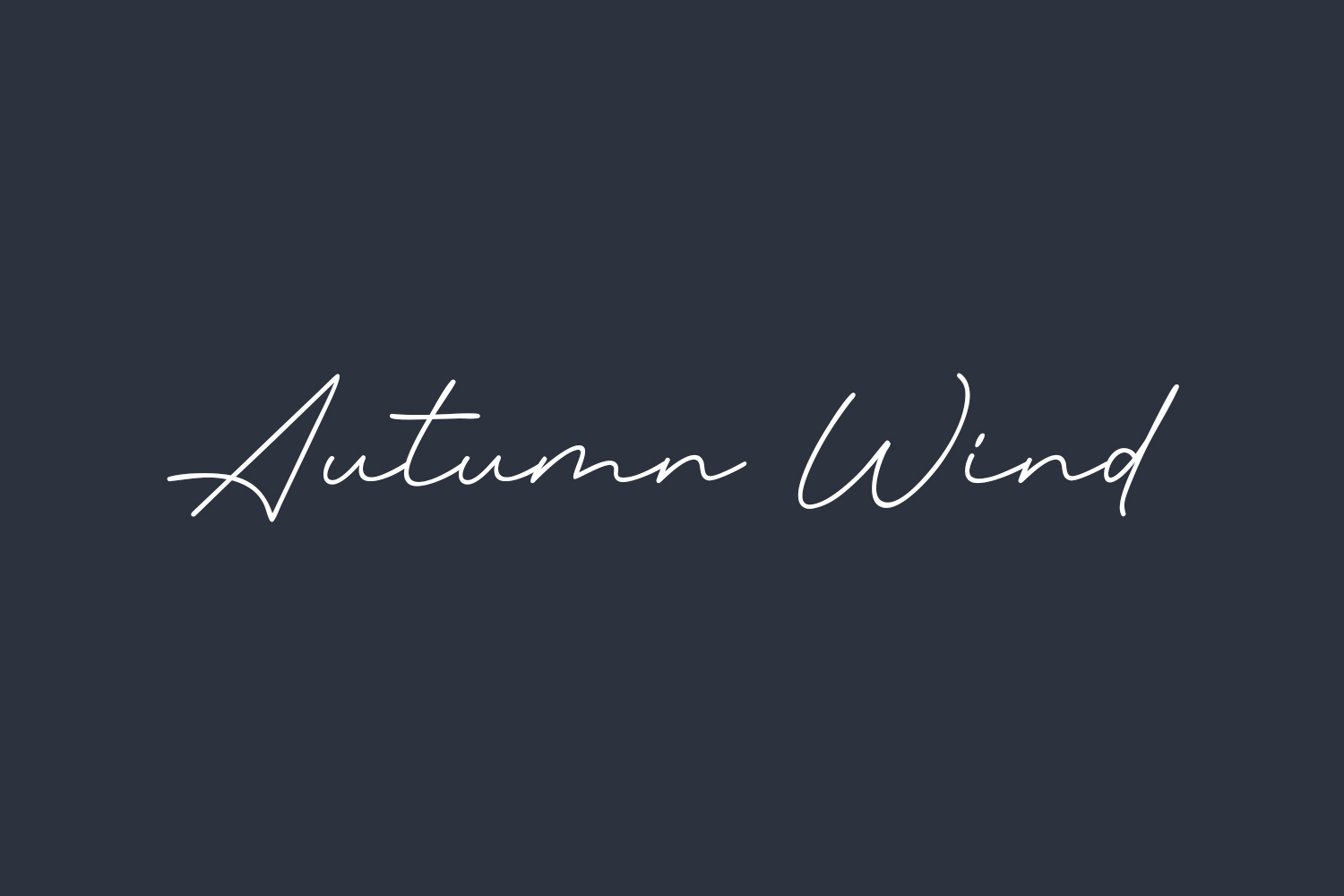
Autumn Wind Free Font: a clean, stylish, modern, and elegant script font ideal for posters, logos, magazines, book covers, banners, and more! Elevate your designs with this exceptional font, tailored to inspire creativity. Explore its versatility across a wide spectrum of projects and experience how it effortlessly enhances your creative concepts, making them truly distinctive. Autumn Wind Free Font is free for personal use only. Please purchase the full version for commercial use.